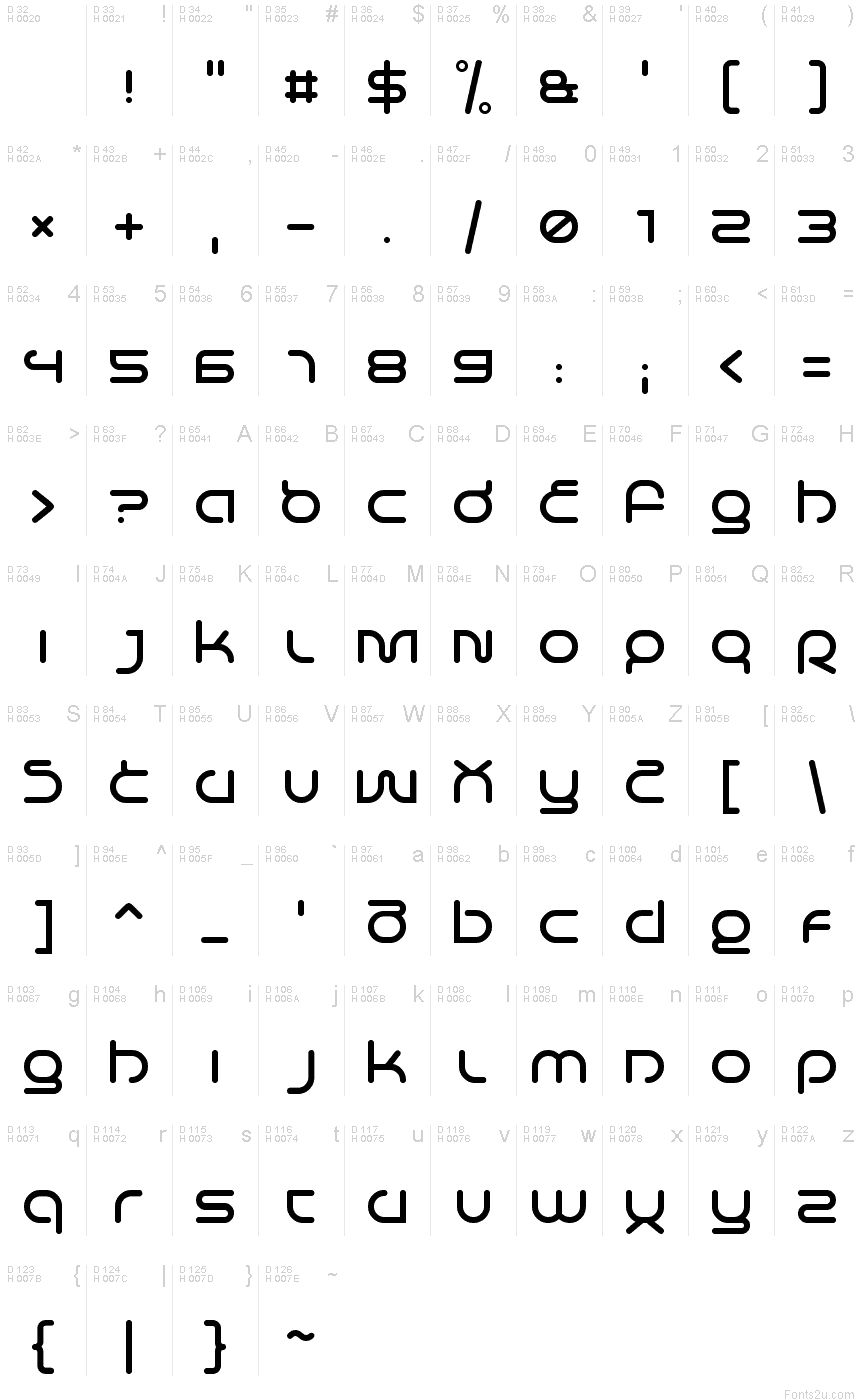
Life in Space
Life in Space font by dustBUST Fonts is a free futuristic display font with rounded, monoline shapes and softened corners. The letters feel assembled from simple arcs and straight strokes, giving the nameplate a compact, orbital rhythm that looks tailored to sci-fi branding.
Life in Space works well for space posters, tech logos, game titles, album covers, and signage that needs a sleek, themed accent. Its smooth geometry keeps the lettering consistent across short headlines, product marks, and editorial graphics where a futuristic outline matters more than ornament.